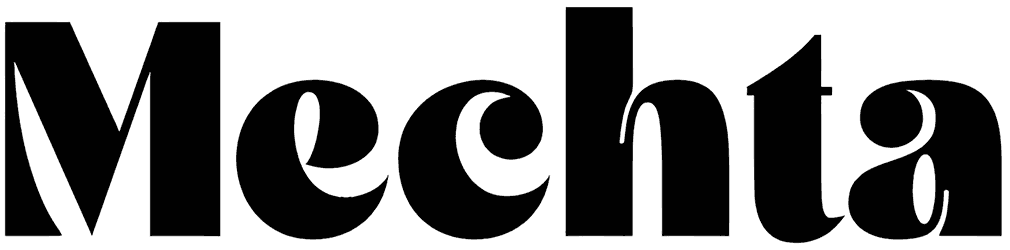
Mechta Font
The rounded serifs of Mechta are eager to take us to the sweet past days of the 80s or 90s aesthetic to provide a gorgeous nostalgic design adventure. The A-Z versatile fat sans serif font can be applauded for its chunky, strong letters on many sites; titling, movie show, storybook, packaging, or anything else. So be quick to try it and share the classic vibe!